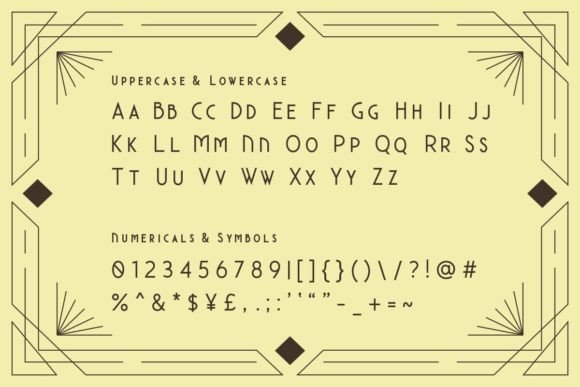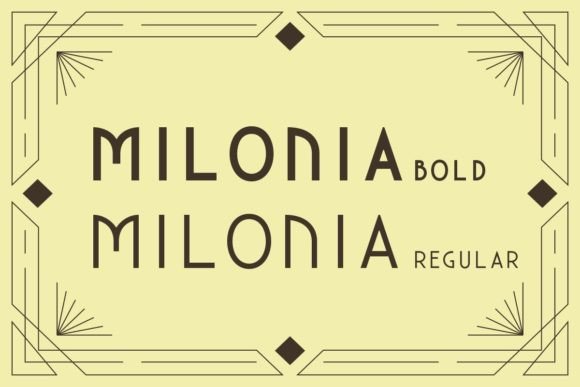
Introduction to Milonia Font
Imagine you’re working on a design project, and you need the perfect font to give it that extra oomph. You’re browsing through your design resources, and suddenly, you stumble upon the Milonia Font. Its sleek and retro aesthetic catches your eye, and you can’t help but feel a spark of inspiration. This Art Deco sans serif font is the epitome of style and sophistication, transporting you to the glamorous era of casinos.
The Milonia Font is more than just a design element – it’s a game-changer. With its high-quality design and transparent background, it’s the perfect addition to any creative project. Whether you’re designing a logo, a website, or a marketing material, this font will elevate your design to the next level.
Key Features of Milonia Font
- Unique characteristics include its clean lines, elegant curves, and sophisticated feel, making it perfect for high-end designs and branding projects.
Honest Review: Milonia Font
As a designer, I’m always on the lookout for high-quality fonts to elevate my creative projects. The Milonia Font has caught my attention, and I’m excited to share my thoughts on this design resource.
- Unique aesthetic: The Milonia Font boasts a distinctive, elegant design that’s perfect for creating a sophisticated atmosphere in your projects.
- High quality: The font’s smooth lines and crisp shapes make it ideal for both digital and print designs.
- Limited font styles: The Milonia Font comes in a limited number of styles, which may not be ideal for projects requiring multiple font weights.
- Not suitable for bold text: Due to its elegant design, the Milonia Font may not be the best choice for bold, attention-grabbing text.
Overall, I’m impressed with the Milonia Font’s high quality and unique aesthetic. While it has some limitations, it’s an excellent choice for designers working on creative projects requiring a sophisticated look. With its transparent background and free download, it’s a great addition to any design resource library.
Milonia Font
Milonia Font is suitable for a variety of design projects, including: